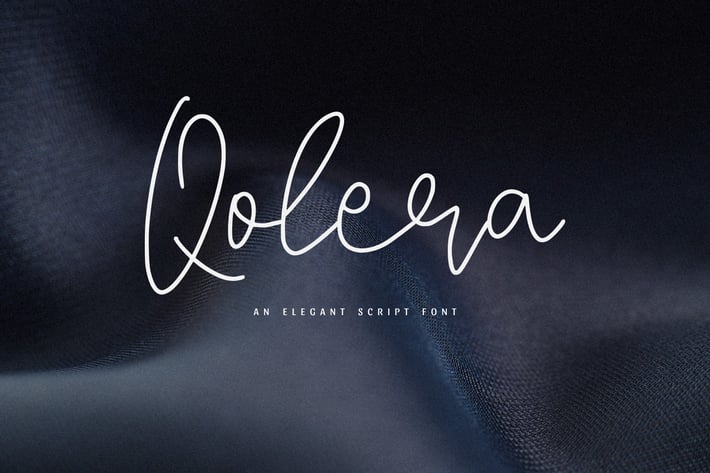
Qolera - An Elegant Script Font
Qolera - An Elegant Script Font, every single letter has been carefully crafted to make your text looks beautiful. it's perfect for logos, name cards, magazine layouts, invitations, headers, or even large-scale artwork.
- Qolera font including upper & lowercase characters, numerals and more of symbols.
- Support Western Europe Languages